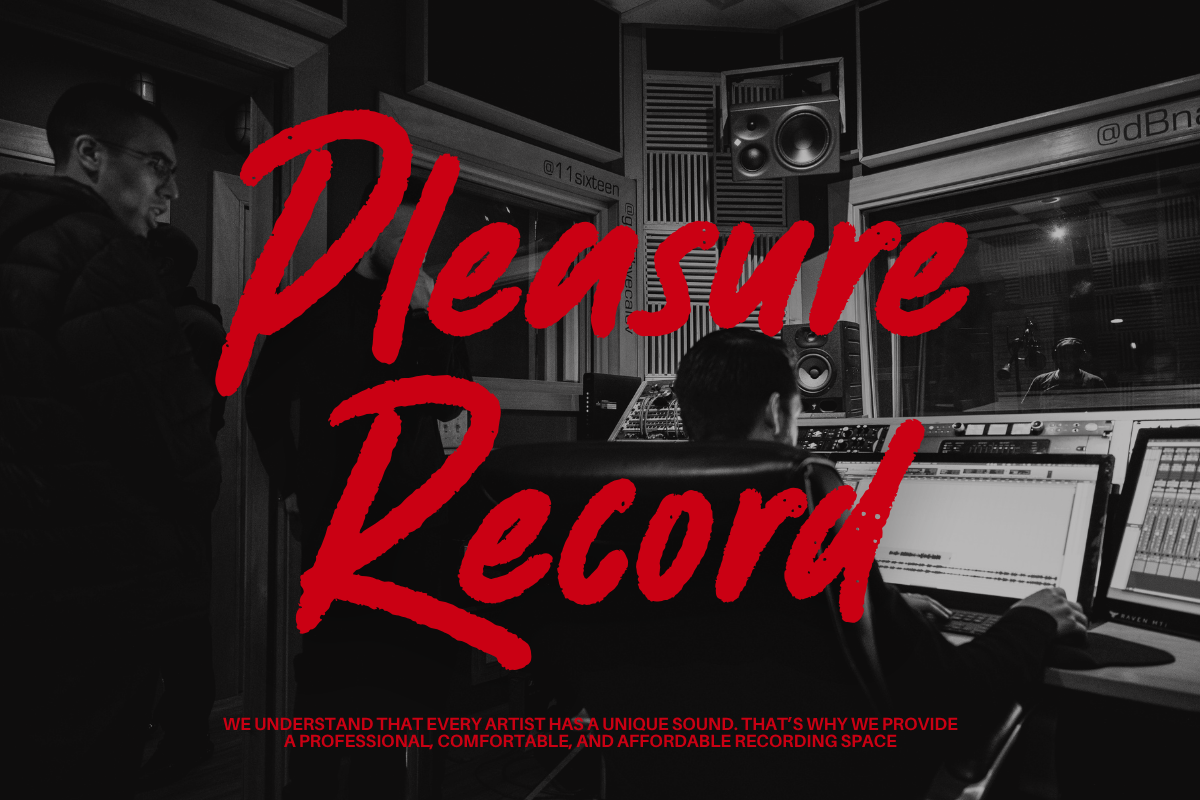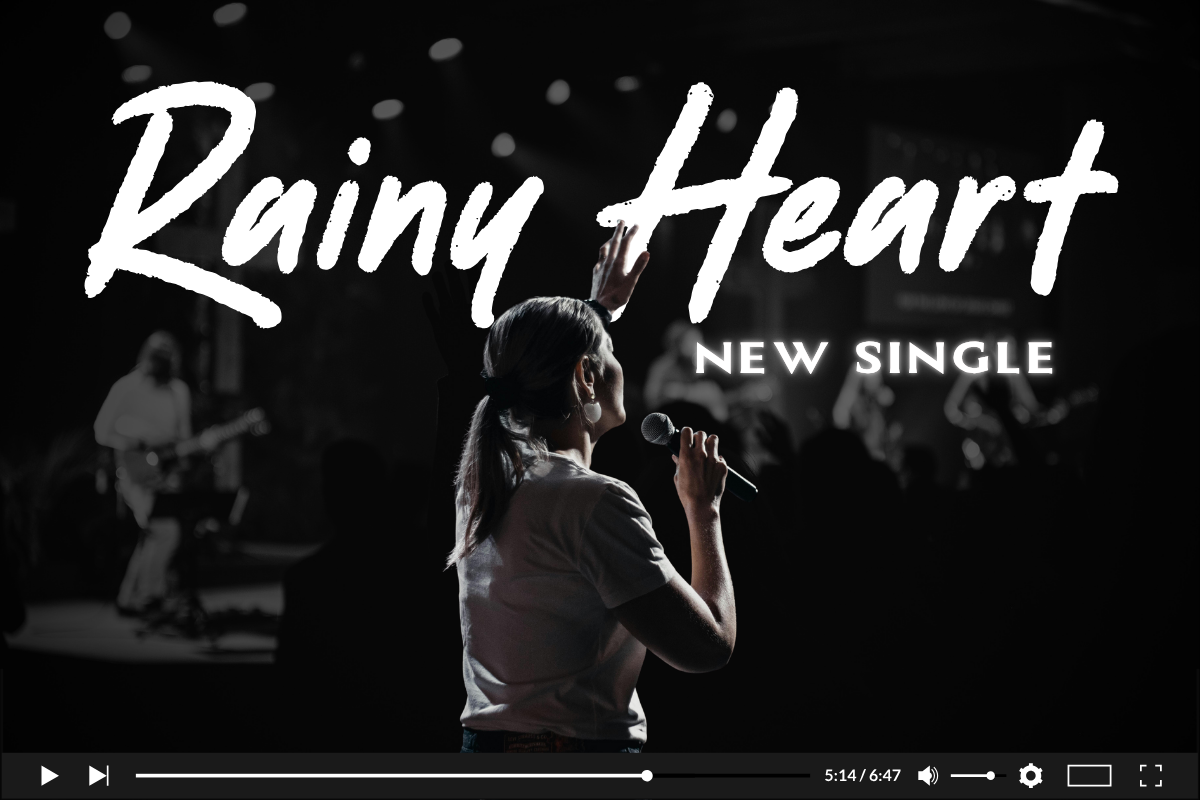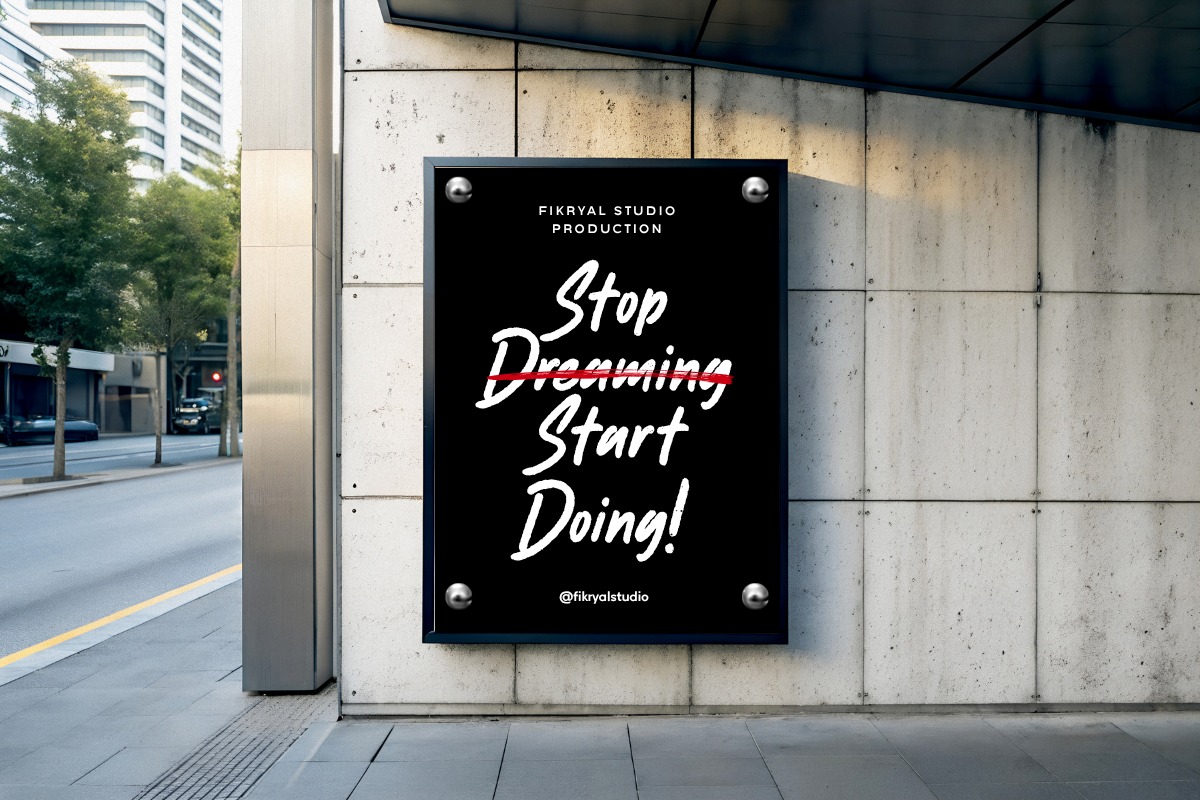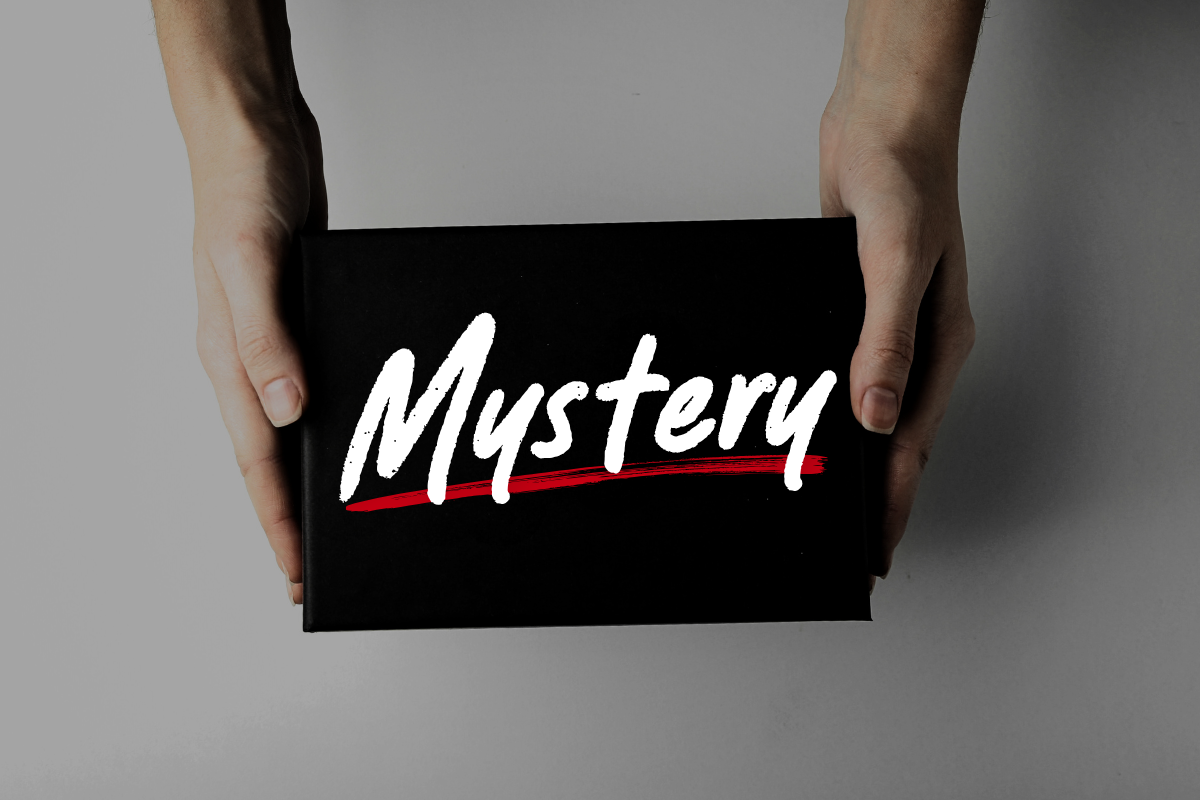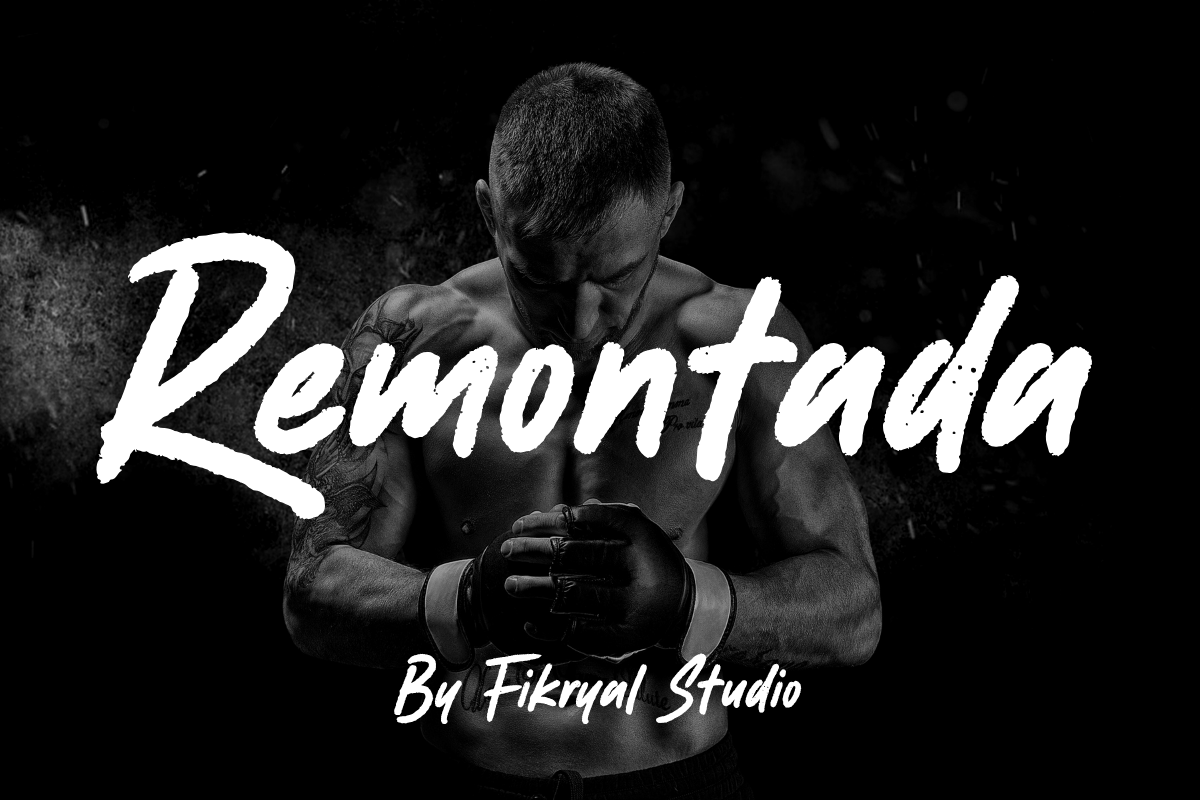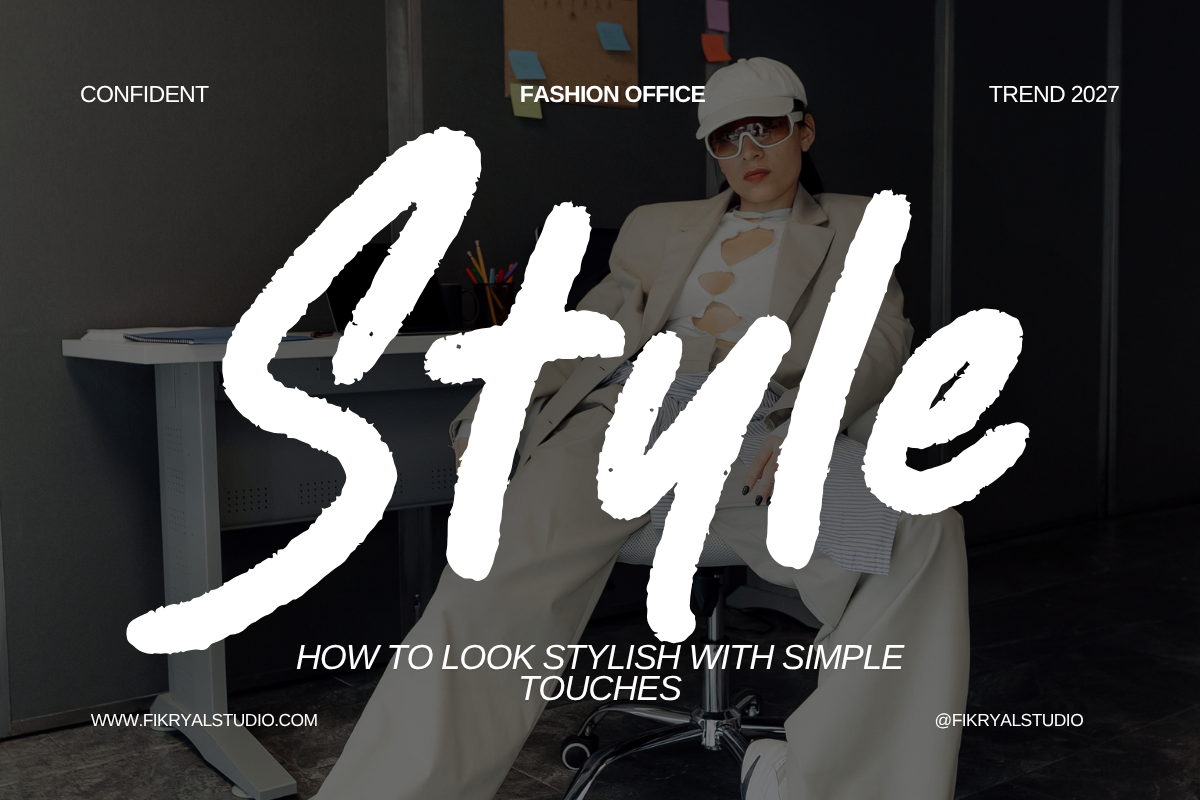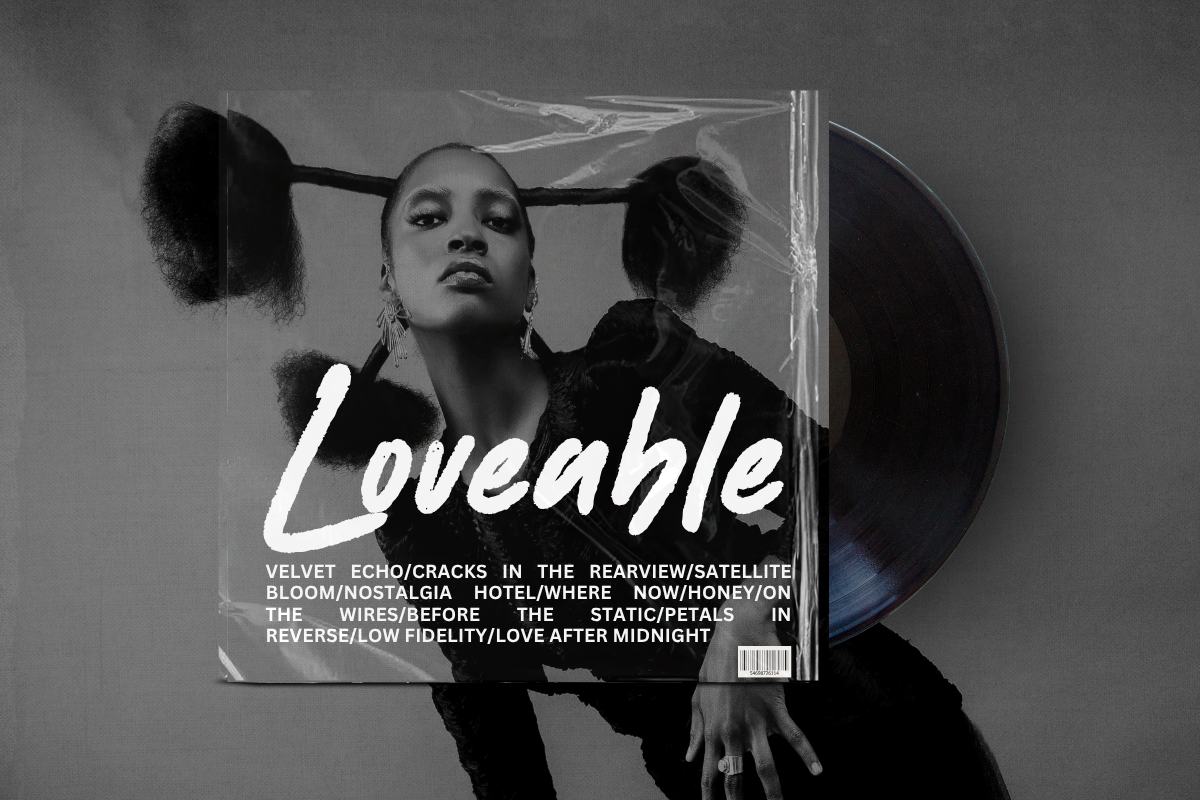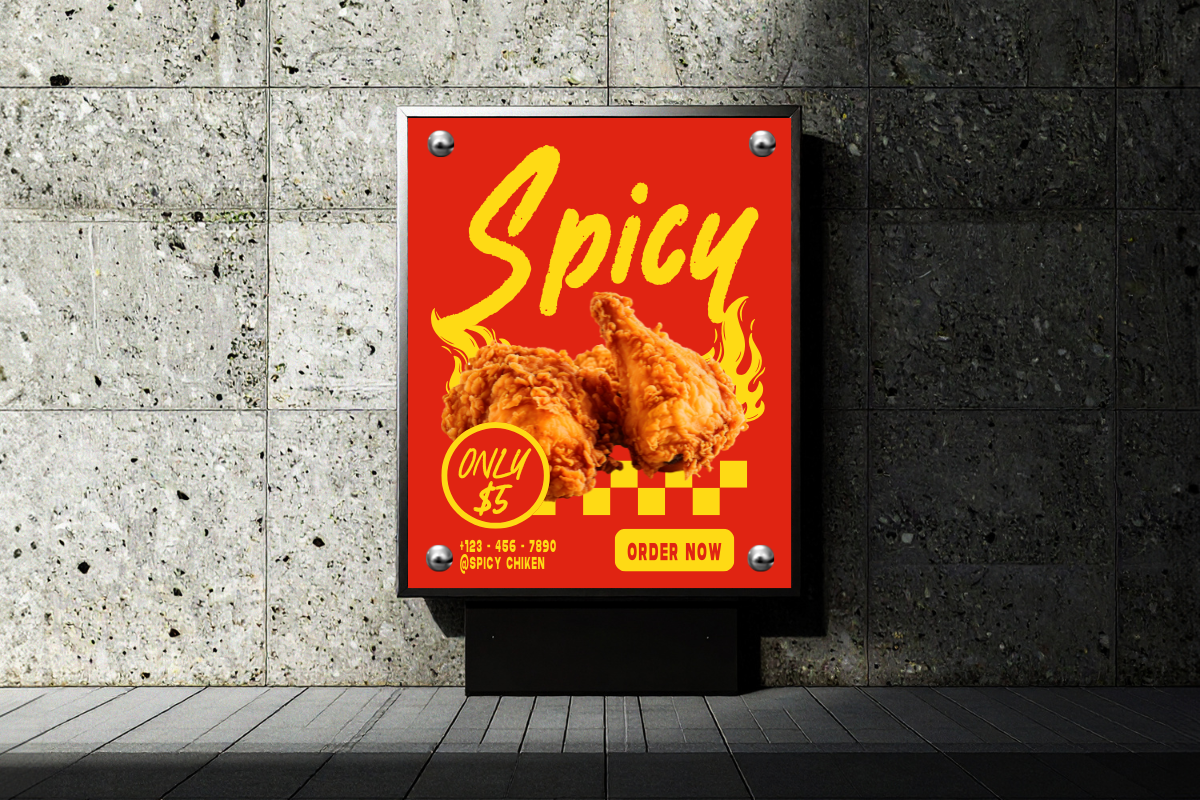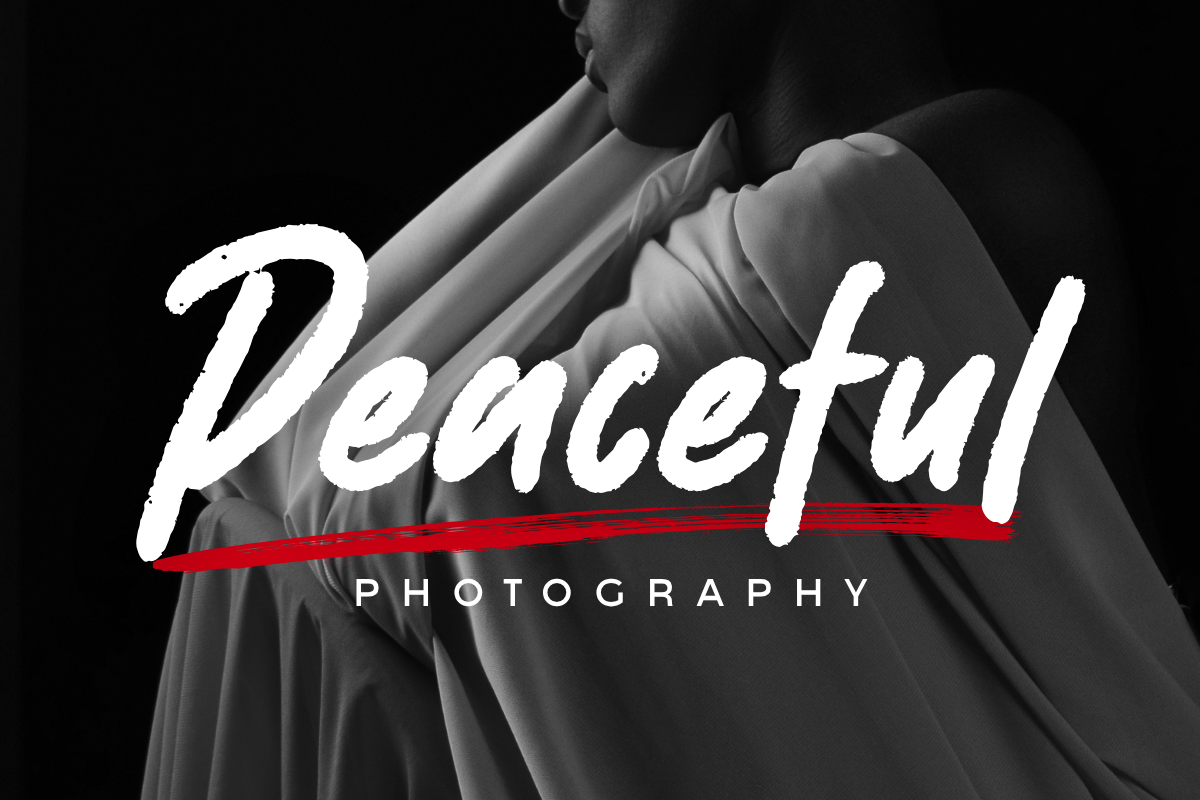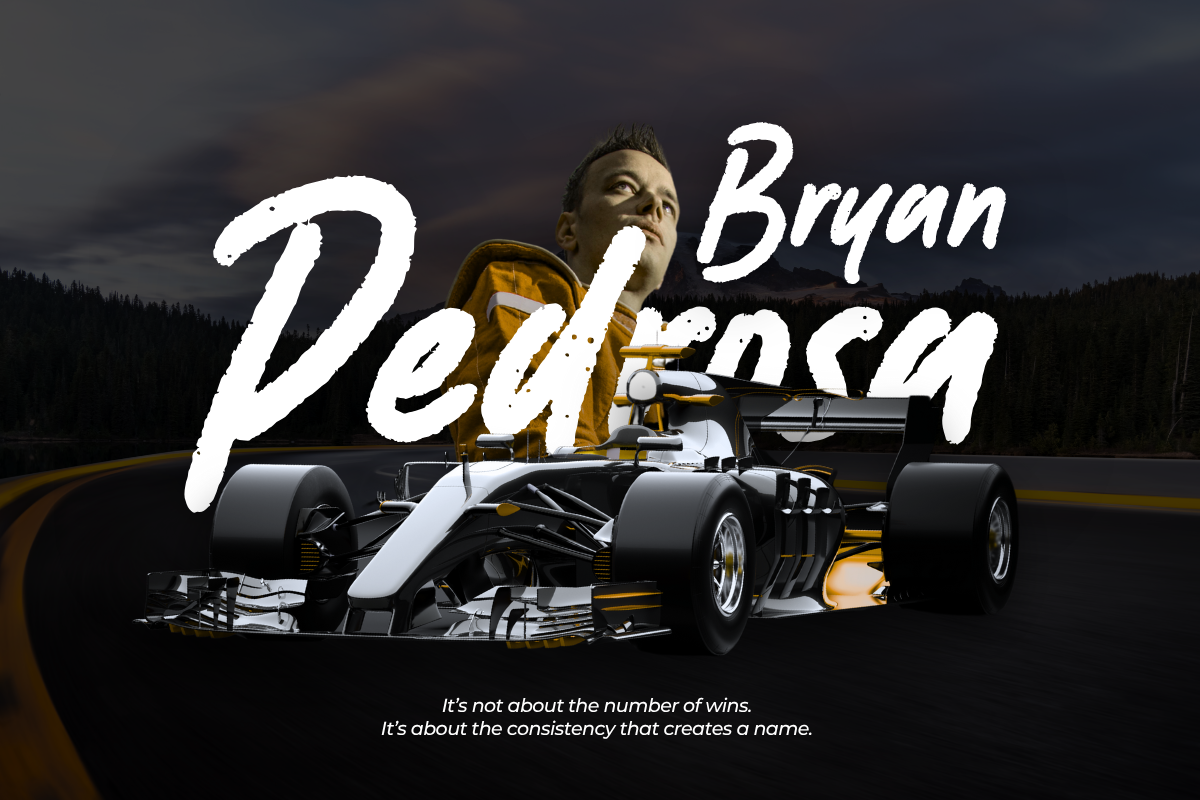
Remontada – Brush Display Font
Remontada – Brush Display Font is a handwritten brush display typeface that brings the raw energy of brush strokes into modern design. With both uppercase and lowercase letters, it offers flexibility and natural flow — perfect for bold headlines or expressive branding.
Each stroke in Remontada captures the texture and rhythm of real brush handwriting, giving your work a handcrafted, artistic look that feels authentic and powerful.
Branding & logo design
Packaging and label design
Posters & advertising
Apparel and merchandise
Social media content & quotes
Natural brush texture
Make your designs stand out with the bold, organic charm of Remontada — a brush font that adds personality, confidence, and creativity to every project.